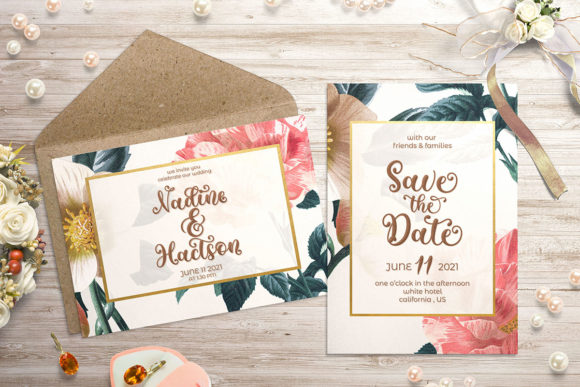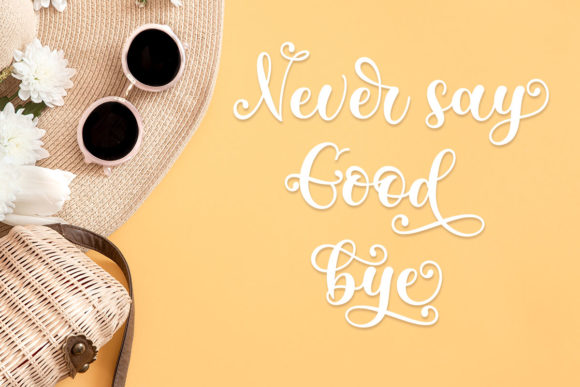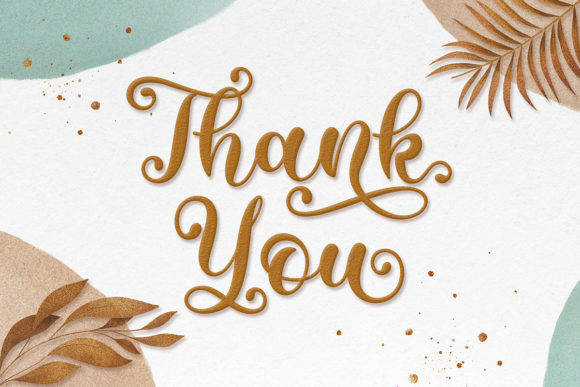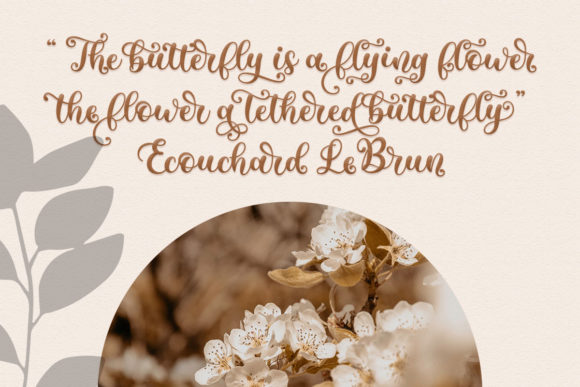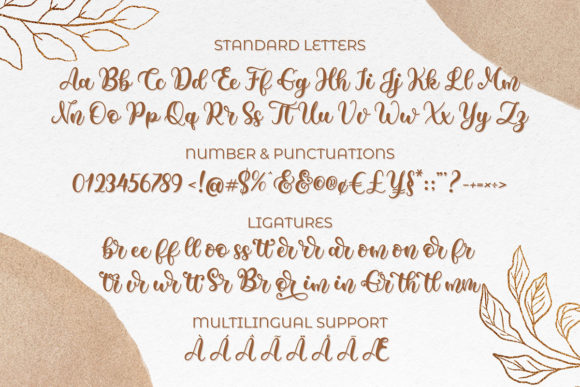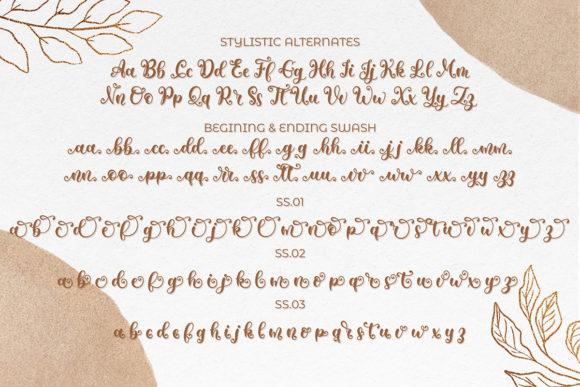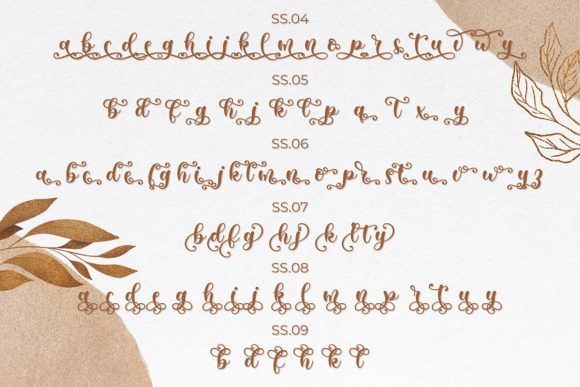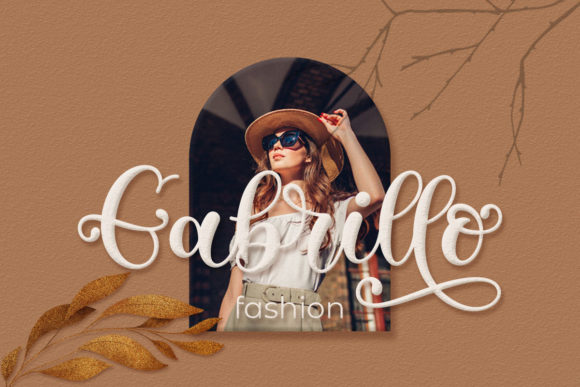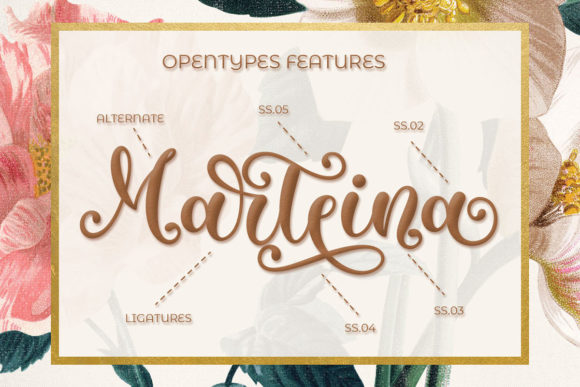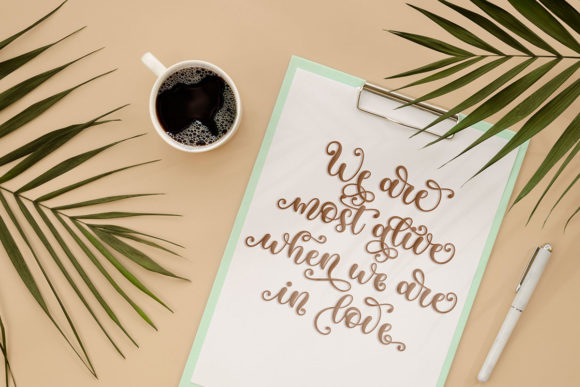
Metafora Font
About Metafora Font
Metafora is a magnificent and fancy calligraphy font that embodies natural elegance, making it a perfect choice for a wide array of projects. With its versatility and exquisite design, Metafora adds a touch of sophistication and beauty to various creative endeavors.
Natural Elegance: Metafora’s graceful and flowing strokes give it a natural elegance that enhances the visual appeal of any project. The font’s calligraphic style exudes charm and refinement, making it a wonderful addition to designs that require a touch of sophistication.
Suitable for Various Products: The versatility of Metafora makes it suitable for a wide range of products and applications. From elegant invitations and product packaging to inspiring quotes and logos, this font adds a sense of allure and class to every design.
Perfect for Invitations: With its fancy calligraphic look, Metafora is a go-to choice for creating stunning invitations for weddings, parties, and other special events. The font’s elegant and intricate details elevate the overall aesthetics of the invitation, leaving a lasting impression on recipients.
Enhancing Product Packaging: Metafora’s refined appearance adds a touch of luxury and uniqueness to product packaging. Whether used for cosmetics, gourmet foods, or high-end merchandise, this font adds a premium and sophisticated feel to the packaging design.
Ideal for Quotes and Inspirational Designs: When it comes to quotes and inspirational designs, Metafora’s elegant calligraphy becomes a powerful tool for conveying meaningful messages with style and grace. The font’s alternative styles allow for creative variations, ensuring a captivating presentation.
Versatile Label Design: Whether for handmade crafts or boutique products, Metafora brings an air of elegance and authenticity to label designs. Its natural flow and alternate styles provide design flexibility, allowing labels to stand out and make a statement.
Photography Watermarks: As a watermark on photographs, Metafora adds a touch of professionalism and exclusivity. The font’s sophisticated appearance enhances the overall look of the images while maintaining a seamless and harmonious blend.
Perfect for Branding: Metafora’s versatility extends to logos and branding applications. Its fancy calligraphy can be adapted to various industries and niches, helping businesses establish a distinctive and refined brand identity.
In summary, Metafora is a remarkable and fancy calligraphy font that exudes natural elegance and versatility. From invitations to product packaging, quotes, watermarks, logos, and branding, this font’s charm and sophistication elevate every design it touches. Its alternative styles offer creative possibilities, allowing you to craft personalized and captivating projects. With Metafora, you have a powerful tool at your disposal to create memorable and enchanting designs that leave a lasting impression on your audience. Embrace the beauty and flexibility of Metafora to bring a touch of elegance to your creative endeavors.